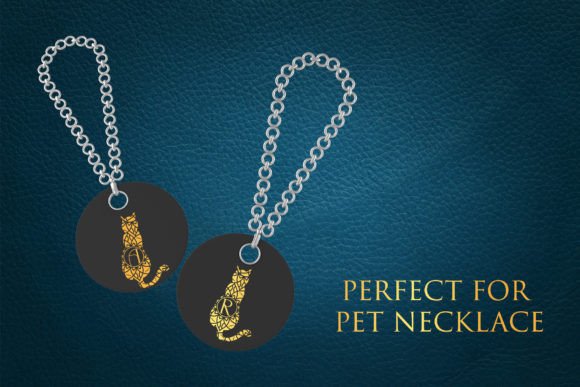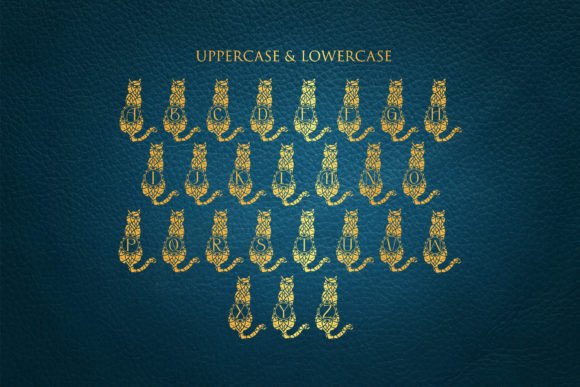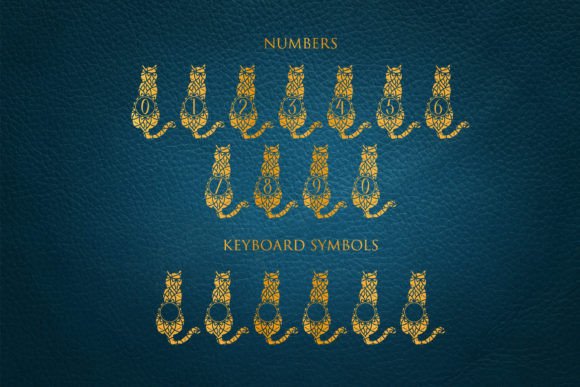
Introduction to Curious Cat Mandala Monogram Font
Curious Cat Mandala Monogram is the ultimate cat-lovers font.
This purrfect decorative typeface will enhance any creative project dedicated to kittens .
Why Choose Curious Cat Mandala Monogram Font?
Curious Cat Mandala Monogram Font offers exceptional quality and versatility, making it a valuable addition to your design toolkit. Whether you’re creating for personal projects or commercial use, Curious Cat Mandala Monogram Font delivers professional results.